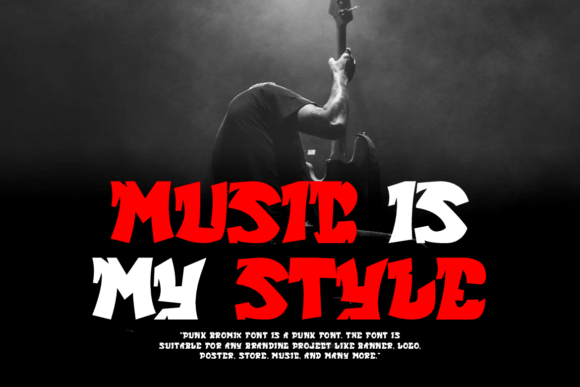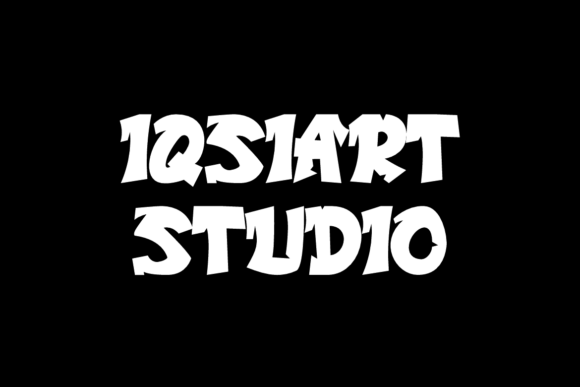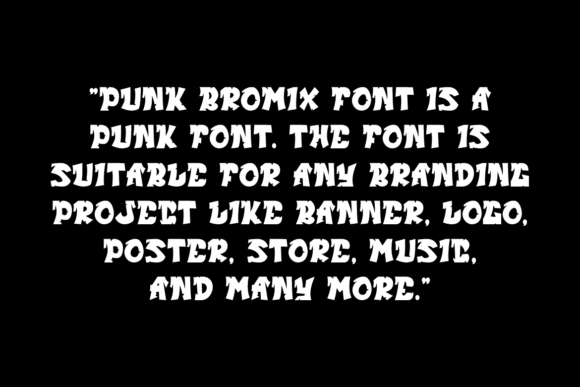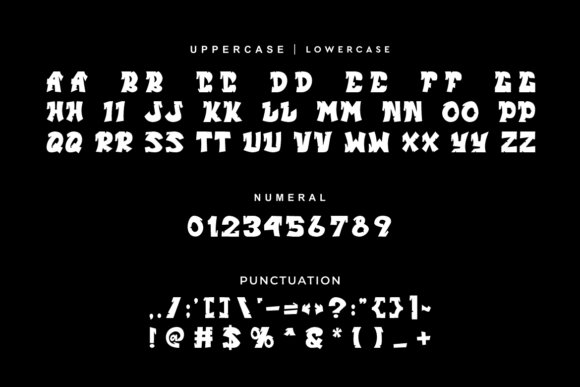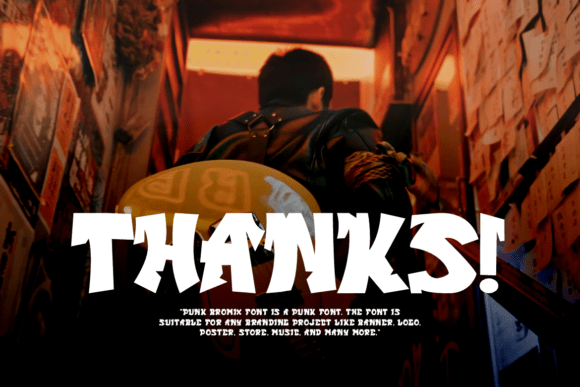
Introduction to Punk Bromix Font
Punk Bromix delivers raw energy and wild style with jagged edges and bold, rebellious forms.
Tailored for punk-themed projects, music posters, and edgy streetwear branding, this typeface exudes underground culture and unfiltered attitude Perfect for turning up the volume on your visuals.
Key Features of Punk Bromix Font